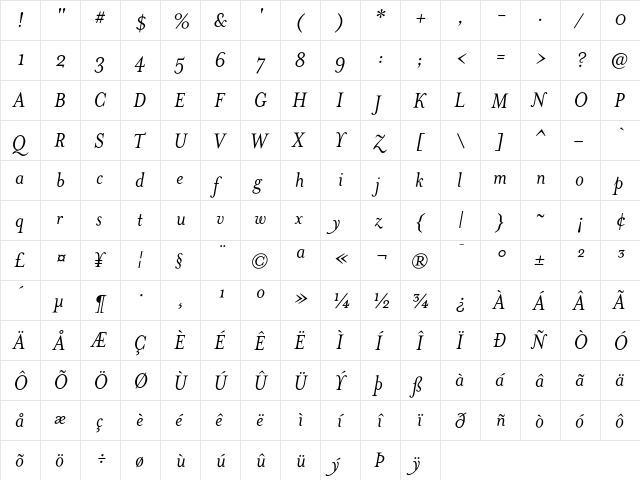
MrsEaves Italic Font Preview
MrsEaves Italic
Design Context for MrsEaves Typeface
MrsEaves offers clean, dependable letterforms without strong stylistic allegiance, making it a practical choice for designers who need flexibility. The slanted form adds forward momentum and visual energy.
Pro Tip: Try MrsEaves for annotation and caption copy alongside an upright companion — the contrast in angle creates a dynamic but ordered typographic system.